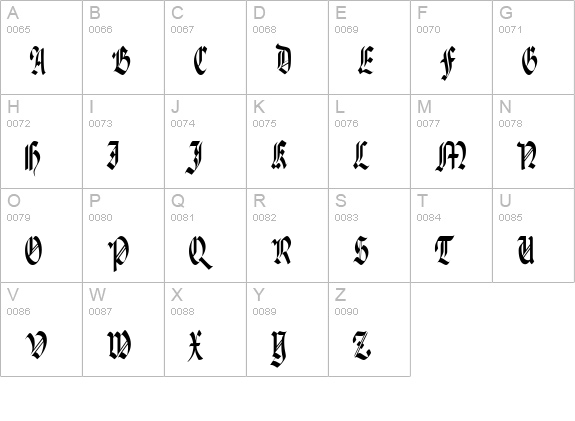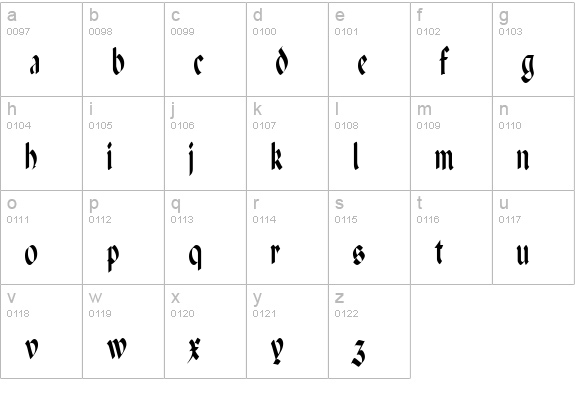
PenchantNarrow Regular Font Details
PenchantNarrow Regular is the standard, neutral variant in the PenchantNarrow typeface family \xE2\x80\x94 well suited to general body text, paragraphs, and standard typographic work.
PenchantNarrow Regular is a sleek and sophisticated font that exudes elegance and modernity. With its slender and refined letterforms, this typeface is perfect for adding a touch of class to any design project. The clean lines and balanced proportions of PenchantNarrow Regular make it versatile and suitable for a wide range of applications, from branding and advertising to web design and print media. This font offers a unique blend of tradition and innovation, combining timeless aesthetics with contemporary flair. Its legibility and readability ensure that your message will be conveyed effortlessly, while its subtle details and subtle curves add a touch of personality and distinction. But the best part? PenchantNarrow Regular is free to download at FontsMarket.com! Yes, you read that right. This high-quality font is freely available to all, making it accessible to both professional designers and amateur enthusiasts alike. Whether you're working on a personal project or a commercial venture, PenchantNarrow Regular will certainly elevate your designs to new heights. So why wait? Head over to FontsMarket.com and grab your free download of PenchantNarrow Regular today. Don't miss out on the opportunity to enhance your designs with this remarkable font. Get ready to impress your audience and make a lasting impression with PenchantNarrow Regular.